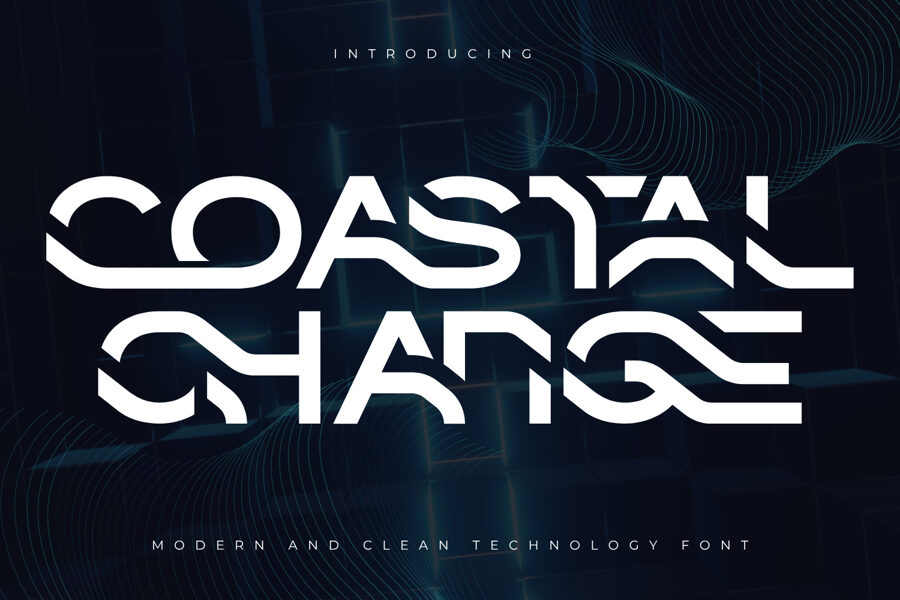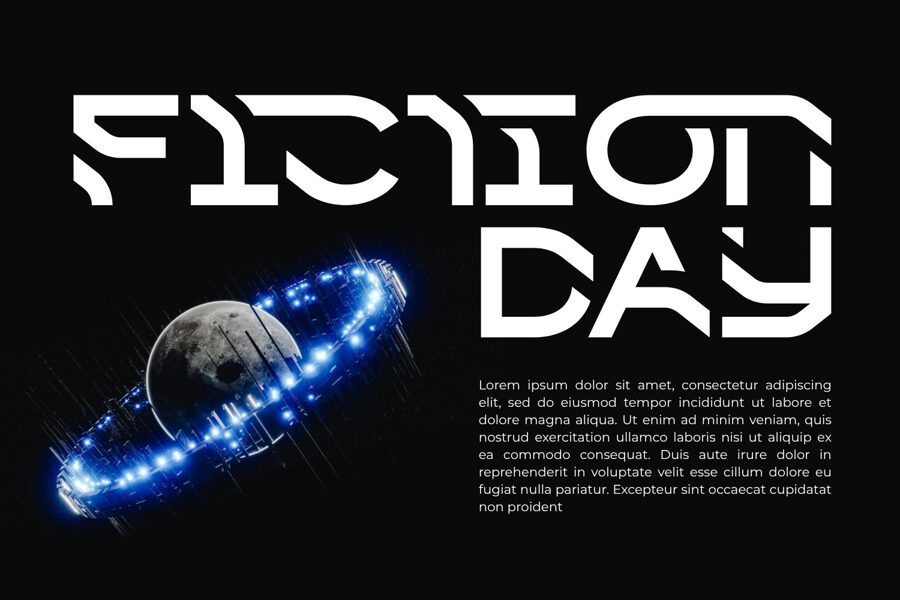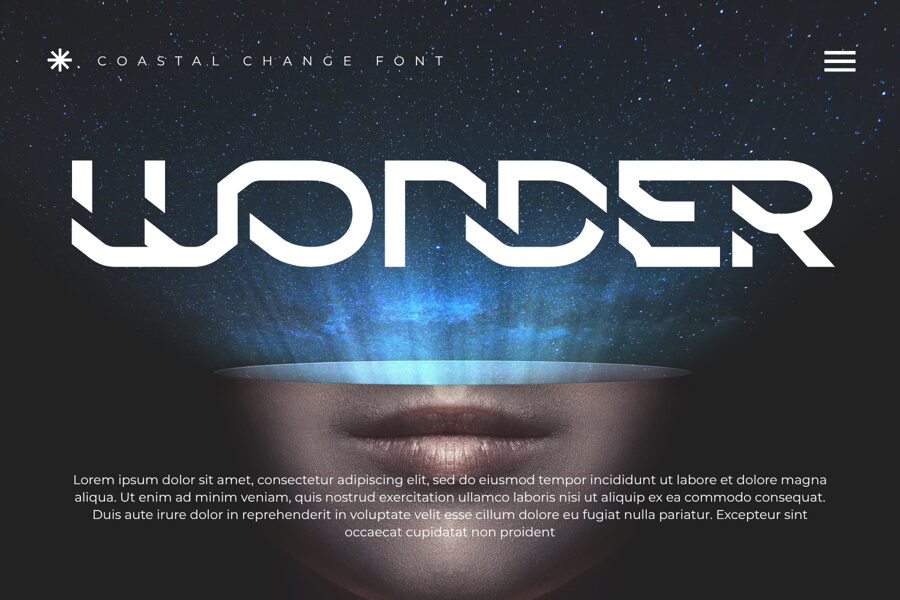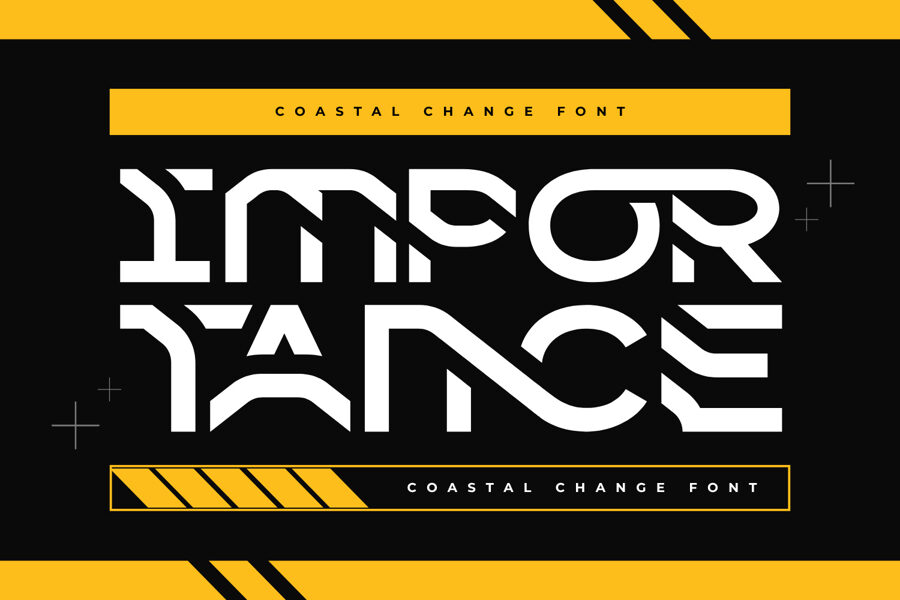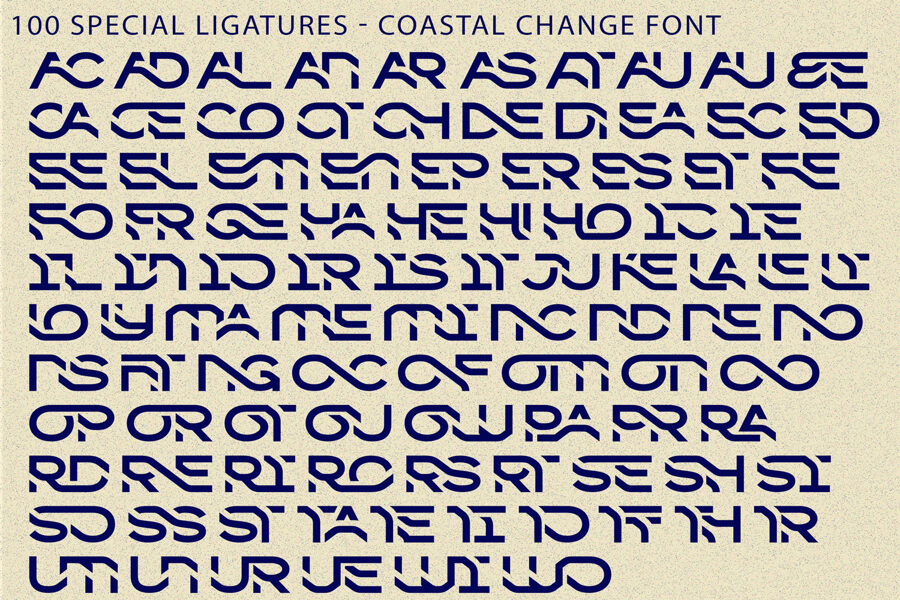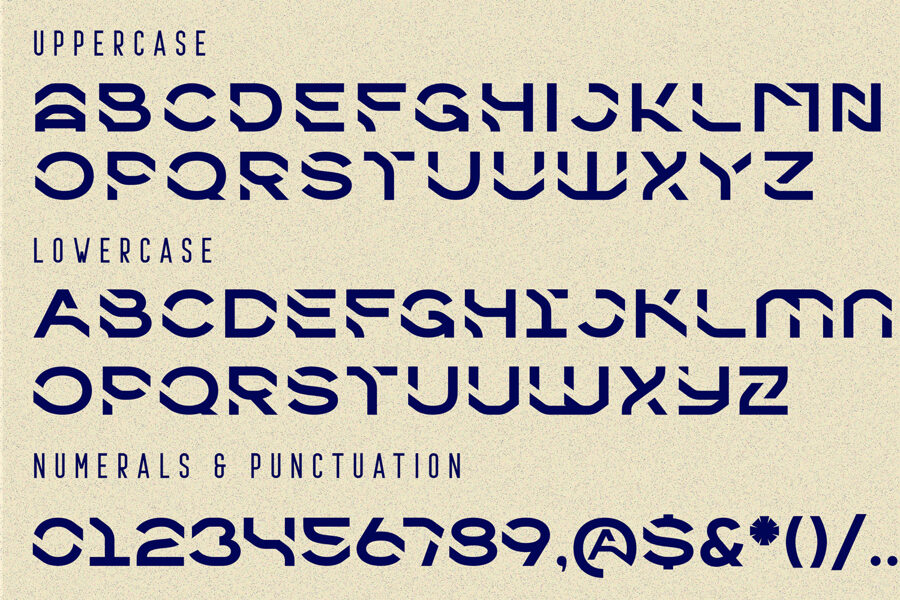
Coastal Change Font
Coastal Change is a futuristic display font inspired by high-tech circuit boards, cybernetic pipelines, and modern streamliner aesthetics. Engineered with a unique modular structure, this typeface seamlessly blends smooth tubular curves with precision diagonal cuts to deliver an advanced, high-tech visual experience.
Its wide, low-profile stance and fluid letterforms give every word a strong sense of continuous motion and innovation. Designed specifically for commanding titles and modern visual identities, Coastal Change is the ultimate choice for AI & robotics branding, esports logos, gaming UI, techwear apparel, synthwave album art, and cinematic sci-fi posters.